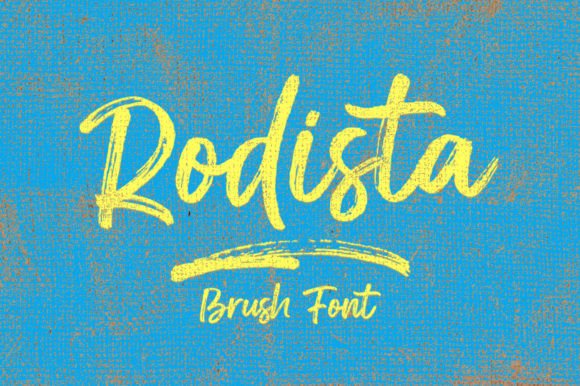
Journey into the world of Rodista Font, a striking script font family that embodies the essence of creativity and expression. Designed by the talented Stripes Studio, Rodista is a captivating handwritten brush font that will add an artistic touch to your digital designs, crafts, presentations, and greeting cards. Its uniqueness lies in the intricate strokes and curves, evoking a sense of authenticity and charm.
Unleash your creativity and let your imagination soar with Rodista Font. Its versatility knows no bounds, lending itself seamlessly to a myriad of projects. Whether you're crafting personalized invitations, creating captivating social media posts, or designing eye-catching logos, Rodista is your perfect companion. This font is a true masterpiece, a fusion of artistry and functionality that will elevate your designs to new heights.
With Rodista Font, you're not just downloading a font; you're embracing a world of possibilities. Its enchanting beauty and endless applications will ignite your passion for design, transforming your creative visions into tangible realities. Experience the joy of crafting designs that resonate with your audience, leaving an indelible mark on their hearts and minds.
Rodista Font is more than just a font; it's an extension of your creativity, a tool that empowers you to express yourself in myriad ways. Its enchanting aura will captivate your audience, leaving them spellbound by the sheer brilliance of your designs. Embrace the boundless potential of Rodista Font and embark on a creative odyssey that will redefine your artistic horizons.